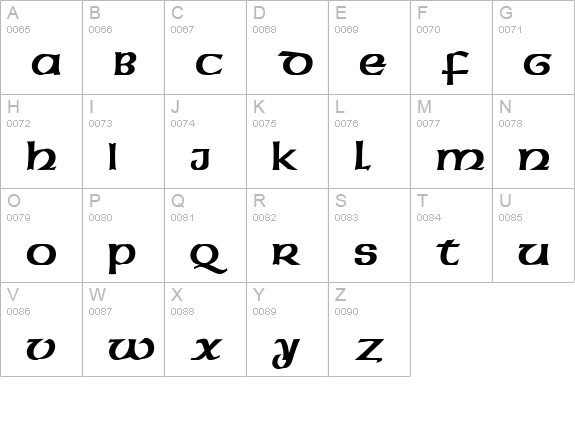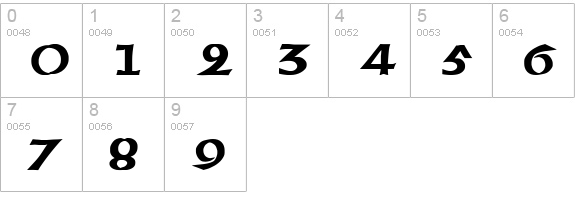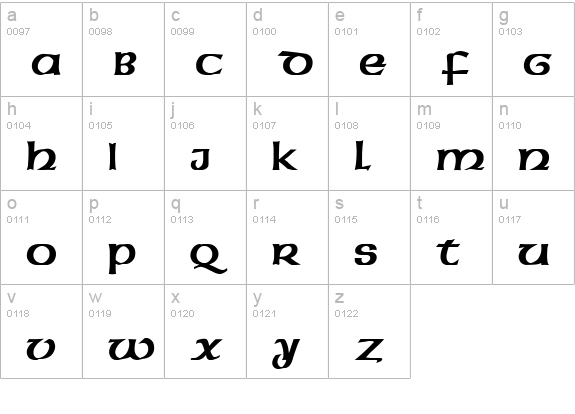
American Bold Font Details
American Bold is a strong, high-contrast variant in the American typeface family \xE2\x80\x94 well suited to headlines, attention-grabbing titles, and strong calls-to-action.
American Bold is a powerful and impactful font that exudes strength and confidence. With its bold and sturdy letterforms, this typeface commands attention and makes a bold statement in any design project. Perfect for headlines, posters, and logos, American Bold adds a touch of Americana and classic appeal to your work. The best part? American Bold is available for free download at FontsMarket.com. This means you can easily access this versatile font and incorporate it into your projects without any cost. Don't miss out on this fantastic opportunity to enhance your designs with the bold and striking aesthetic of American Bold. Download it today and take your design to the next level!